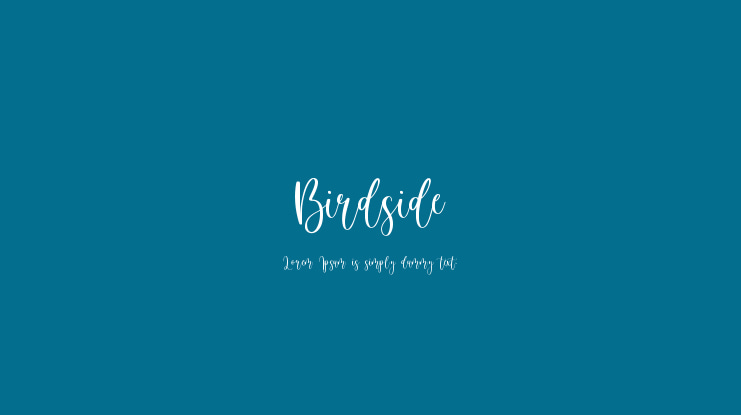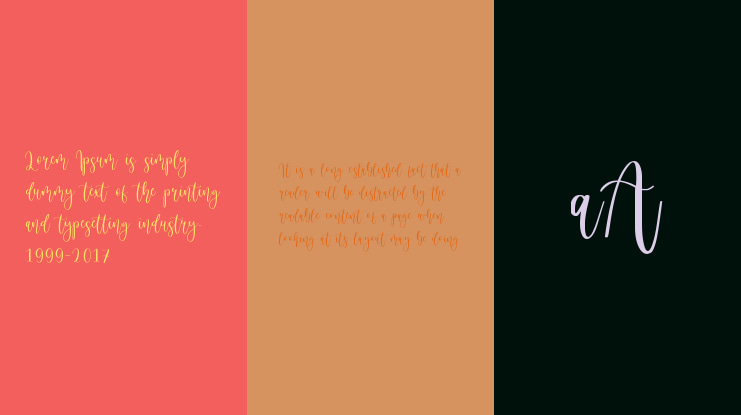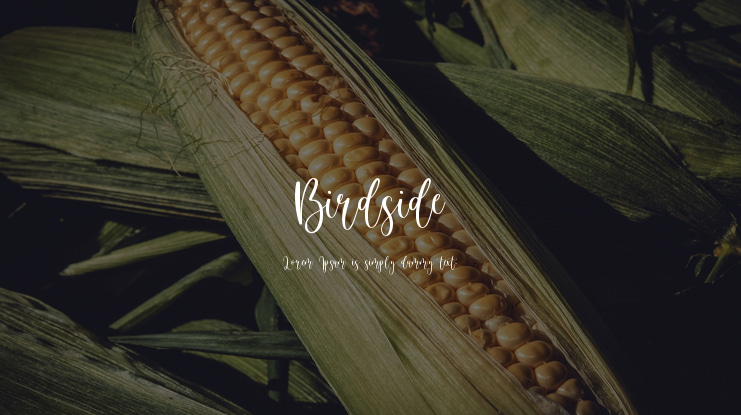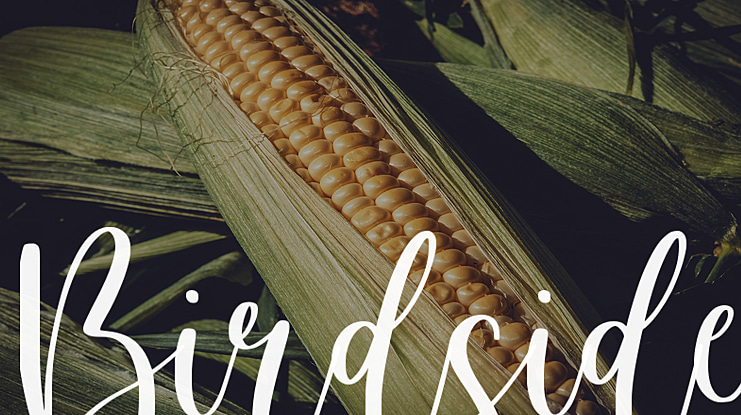
Birdside Font
Proudly Present, Birdside Font.
Birdside is a Lovely Modern Handwritten Font.
Birdside is perfect for product packaging, branding project, megazine, social media, wedding, or just used to express words above the background.